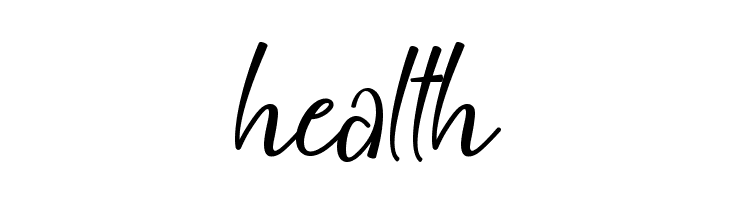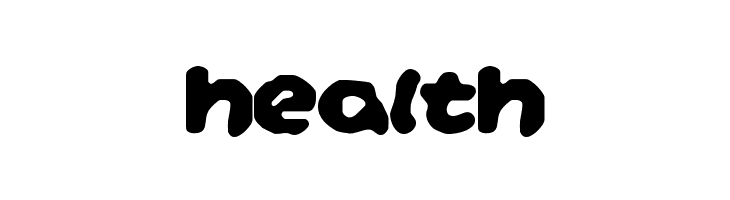
A playful, whimsical font with hanging letters and star accents, perfect for festive designs.
A festive set of bold Christmas-themed icons for decorative use.
A decorative font featuring Christmas-themed icons and symbols.
A festive, decorative font with holiday-themed illustrations and a playful, hand-drawn style.
A playful, bold font with rounded, cartoon-like characters.
A whimsical decorative font with winter-themed illustrations.
A playful collection of festive Christmas-themed doodles in black and white.
A playful and bold font with rounded, whimsical letterforms.
A playful, bold, and italic font with rounded characters, perfect for children's content.
A playful, bold, and rounded font with a whimsical and fun appearance.
A whimsical font with heart motifs and flowing lines, perfect for romantic themes.
A playful, bold font with a bubbly, jellybean-like design.
A bold, festive font with Santa illustrations on each letter.
A playful decorative font with puppy illustrations, perfect for festive projects.
A festive, candy cane-inspired font with bold, striped characters.
A whimsical, cartoonish font with unique illustrations in each character.
A festive, decorative font with Christmas tree and star motifs.
A festive, decorative font with Christmas-themed illustrations integrated into each letter.
A playful, rounded font with a whimsical and friendly style.
A whimsical, festive font with elegant curls and a handwritten calligraphy style.
A whimsical and playful font with ornate, curly serifs and decorative elements.
A playful, balloon-like decorative font with bold, rounded characters.
A festive, decorative font with playful holiday embellishments.
A whimsical, curly font with playful, spiral embellishments.
A playful, hand-drawn font with bold, rounded characters.
A festive font with Santa faces and gift box letters, perfect for holiday themes.
A festive, decorative font featuring Santa Claus and holiday elements.
A festive, decorative font featuring Santa Claus illustrations with each character.
A playful, winter-themed decorative font with bold characters and festive elements.
A playful, bear-themed decorative font perfect for children's projects.
A whimsical decorative font with illustrated characters accompanying each letter.
A whimsical, angel-themed decorative font with playful characters.
A whimsical, character-themed decorative font perfect for playful projects.
A whimsical font with bold letters and integrated penguin illustrations.
A playful, hand-drawn font with a whimsical and artistic style.